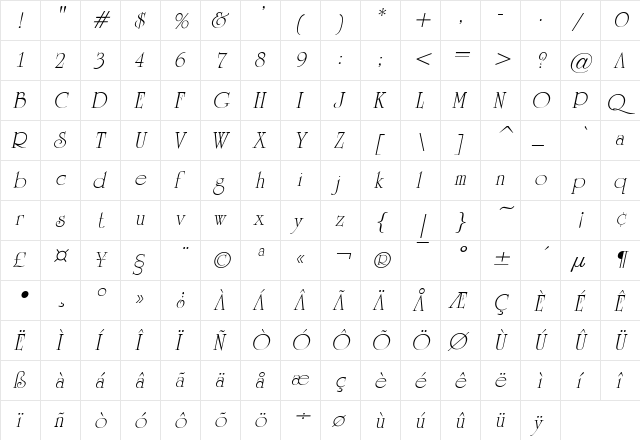
UniversityOrnate Italic
Design Context for UniversityOrnate Typeface
UniversityOrnate offers clean, dependable letterforms without strong stylistic allegiance, making it a practical choice for designers who need flexibility. The dynamic lean of this cut emphasises speed and emphasis in any layout.
Pro Tip: Use UniversityOrnate for emphasis, pull quotes, and subheadings where its slanted energy can add rhythm to the layout.